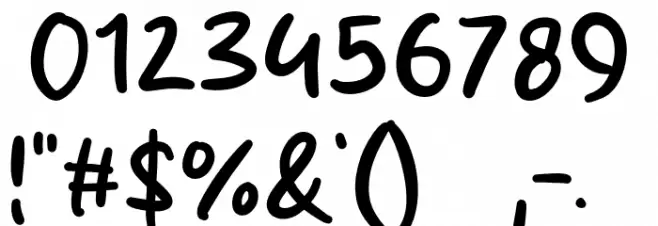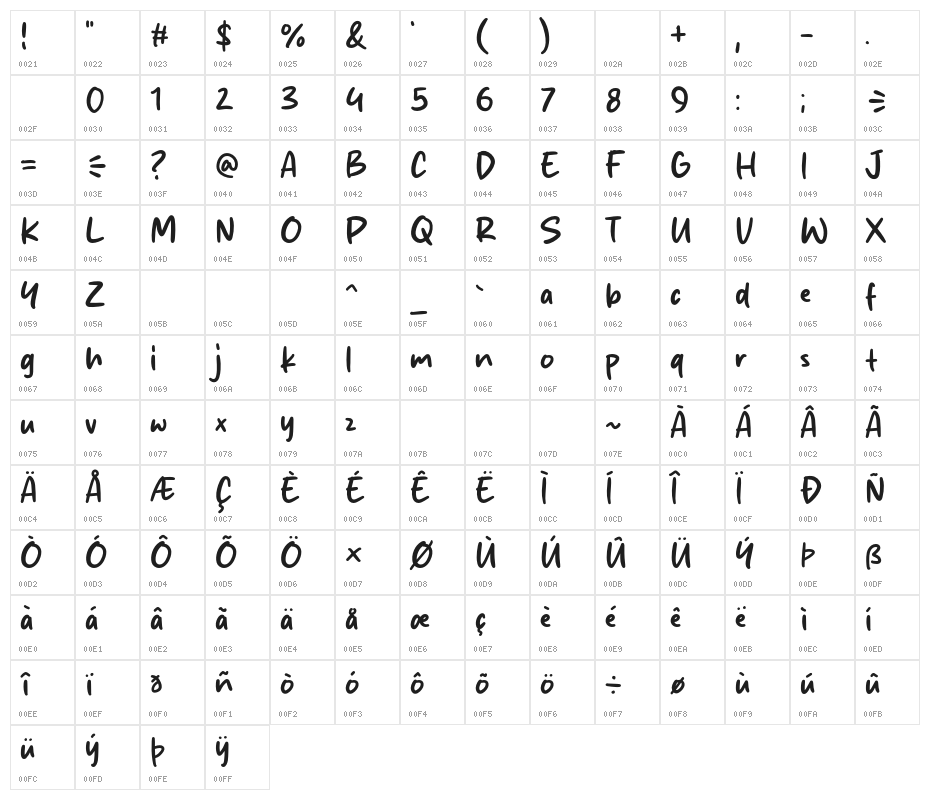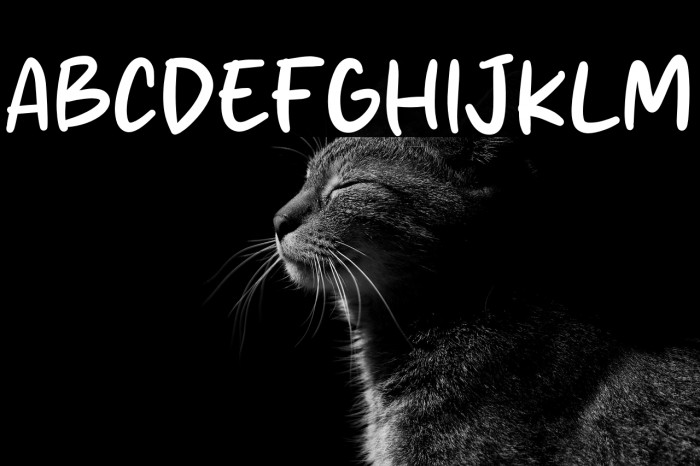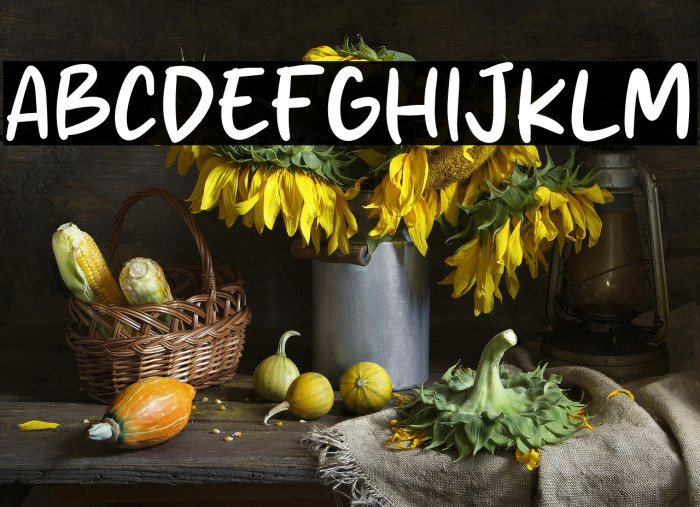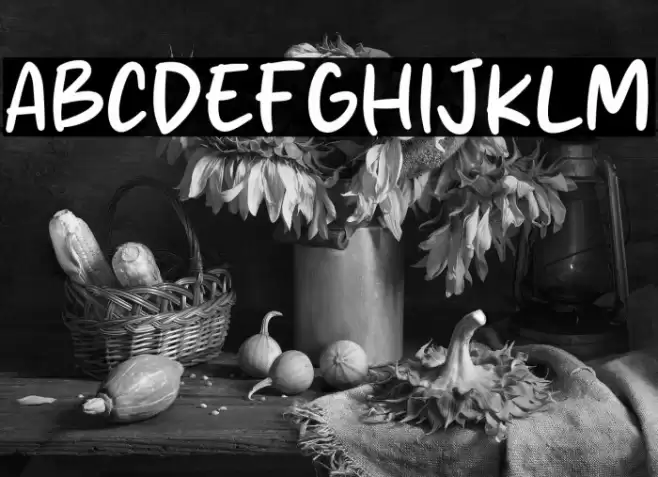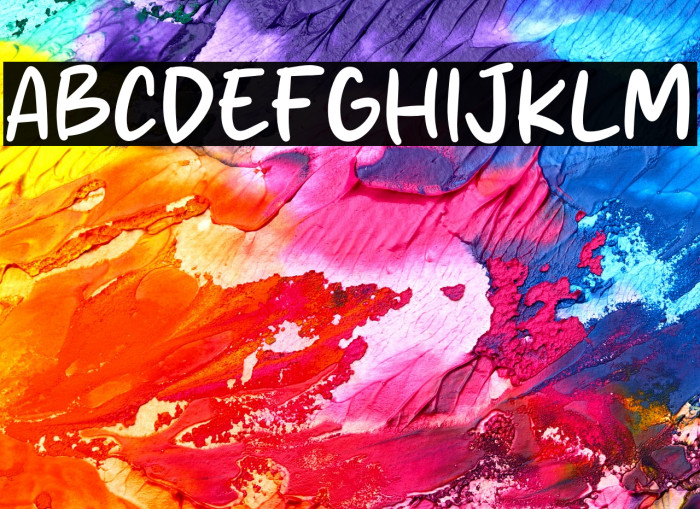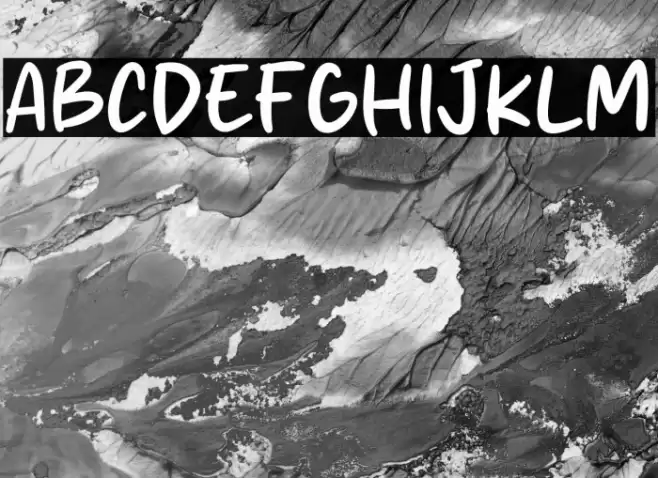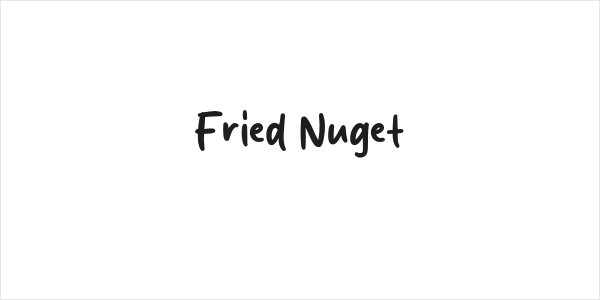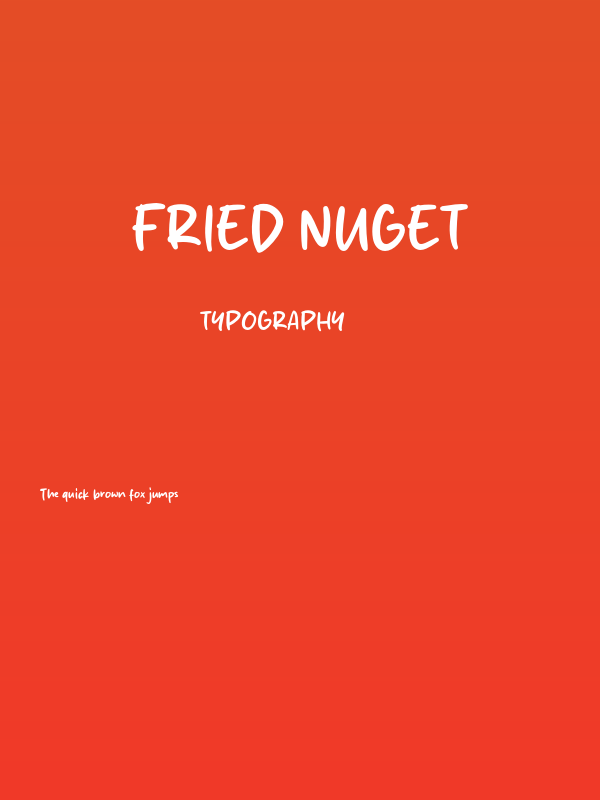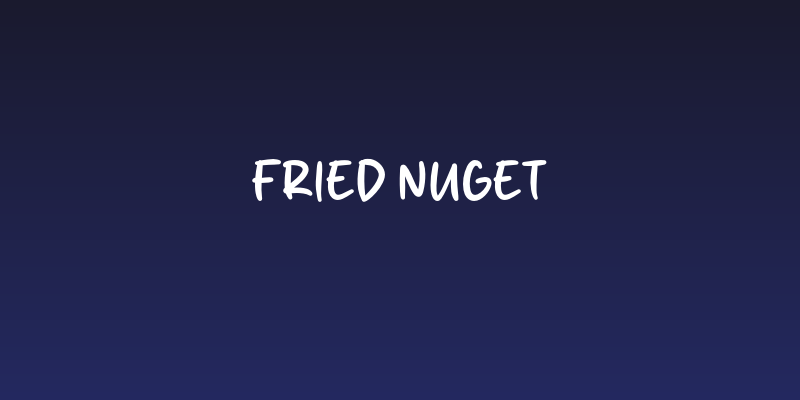
Fried Nuget Font
Fried Nuget Description
This font exhibits a playful and casual handwritten style, characterized by its bold and rounded letterforms. The strokes are consistent in width, giving it a uniform appearance, while the slightly irregular shapes add a touch of whimsy and personality. The uppercase and lowercase letters maintain a cohesive look, with smooth curves and a friendly demeanor. The numerals and special characters follow the same design principles, ensuring a harmonious overall aesthetic. This font's approachable and informal nature makes it suitable for projects that require a personal touch.
| Use Case | Logos, Headlines, Informal Text |
| Proposed Projects | Ideal for greeting cards, children's books, casual branding, and social media graphics. |